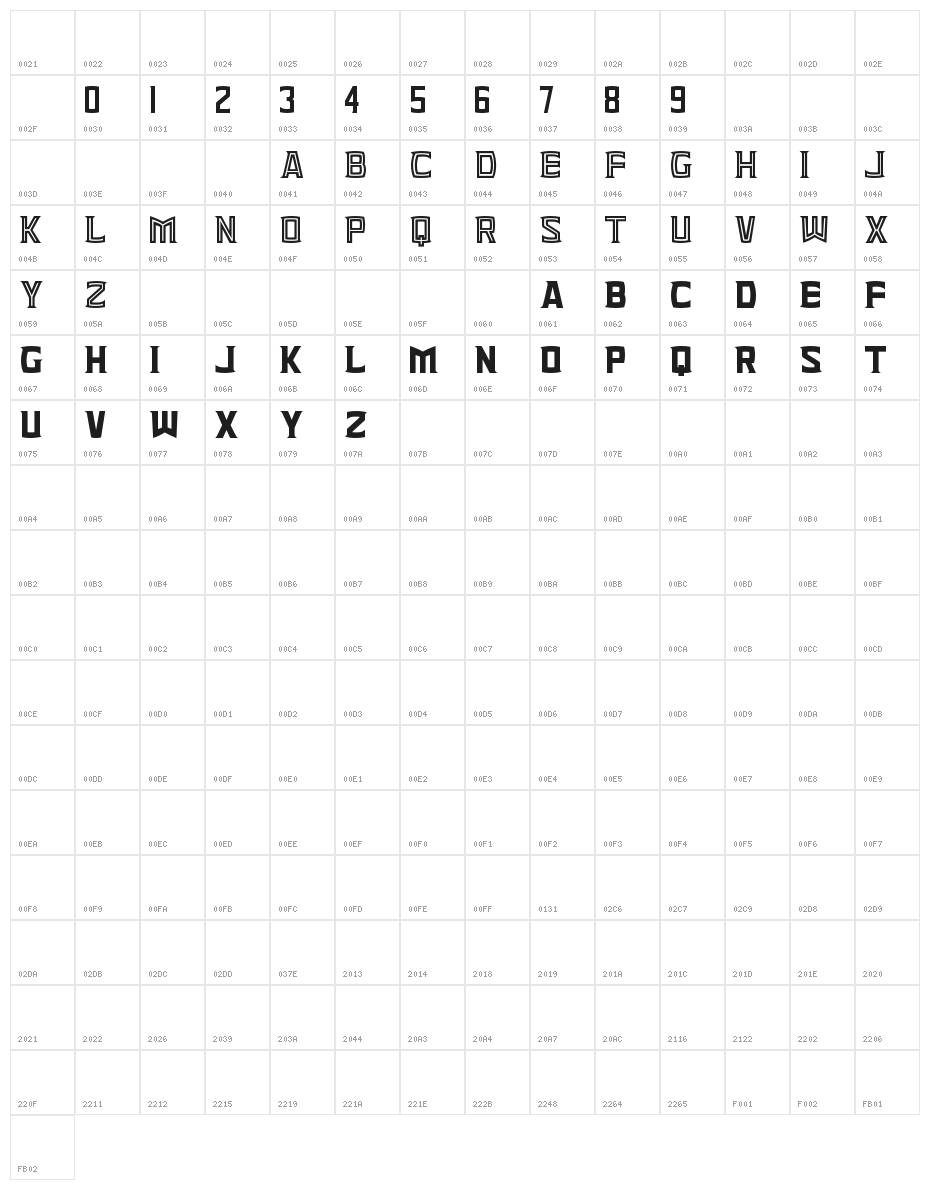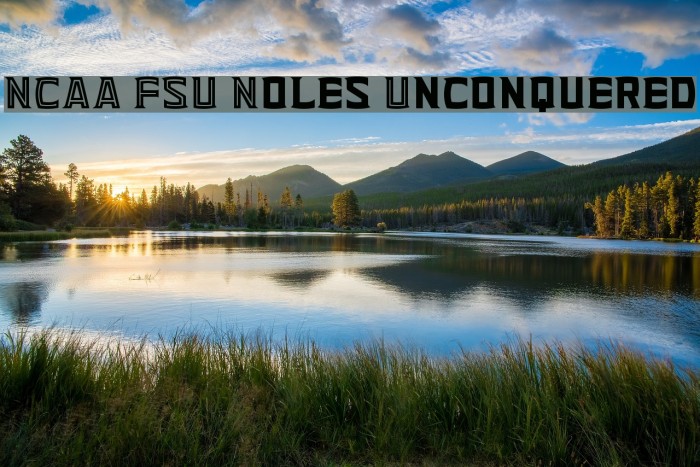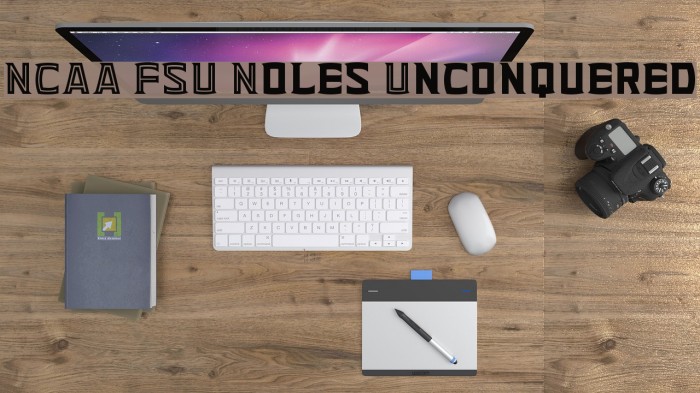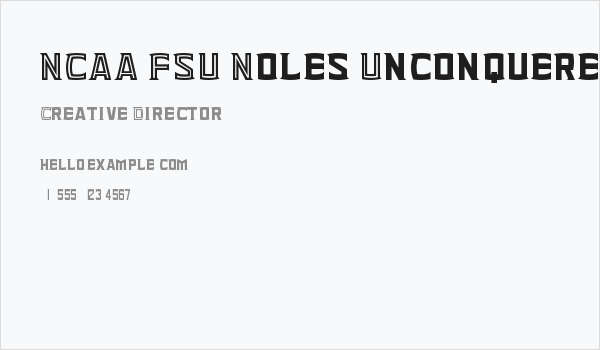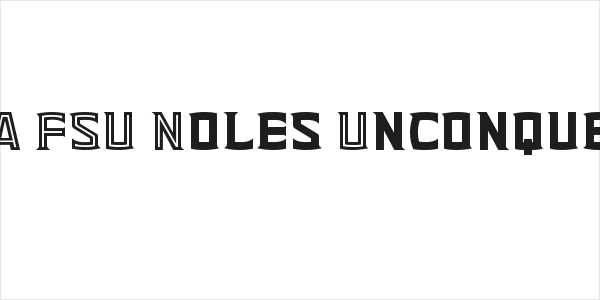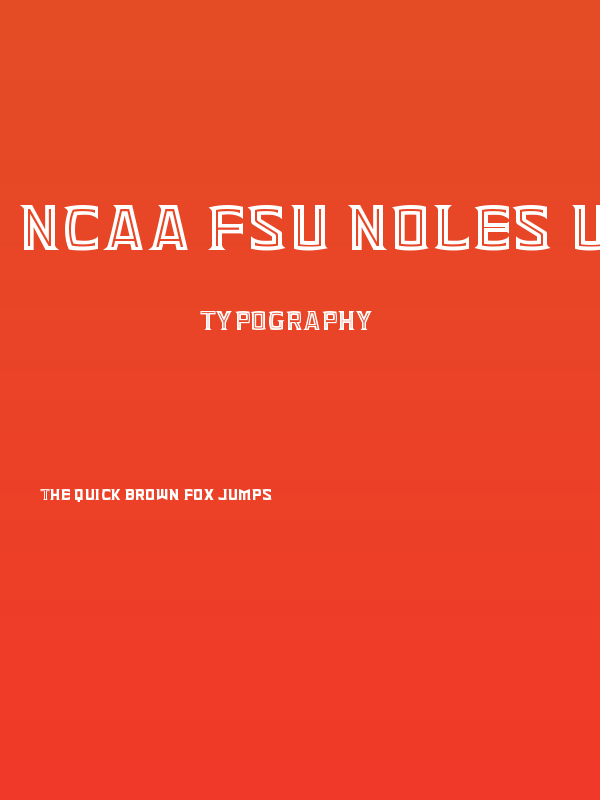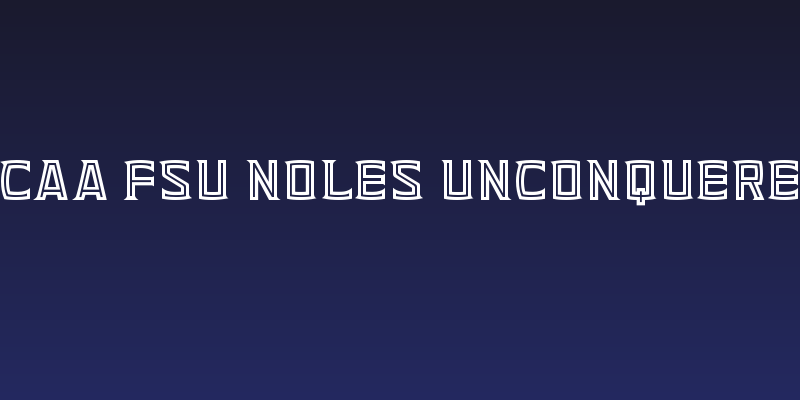
NCAA FSU Noles Unconquered Font
NCAA FSU Noles Unconquered Description
This font features a bold and commanding presence with its strong, angular lines and geometric shapes. The uppercase letters are designed with a sense of power and authority, making them ideal for impactful headlines or logos. The numbers are equally robust, maintaining the font's overall bold aesthetic. The font's style is reminiscent of collegiate or sports themes, with a modern twist that adds a unique flair. The characters are well-spaced, providing a balanced and readable appearance. This font is perfect for projects that require a strong visual impact and a sense of tradition combined with modernity.